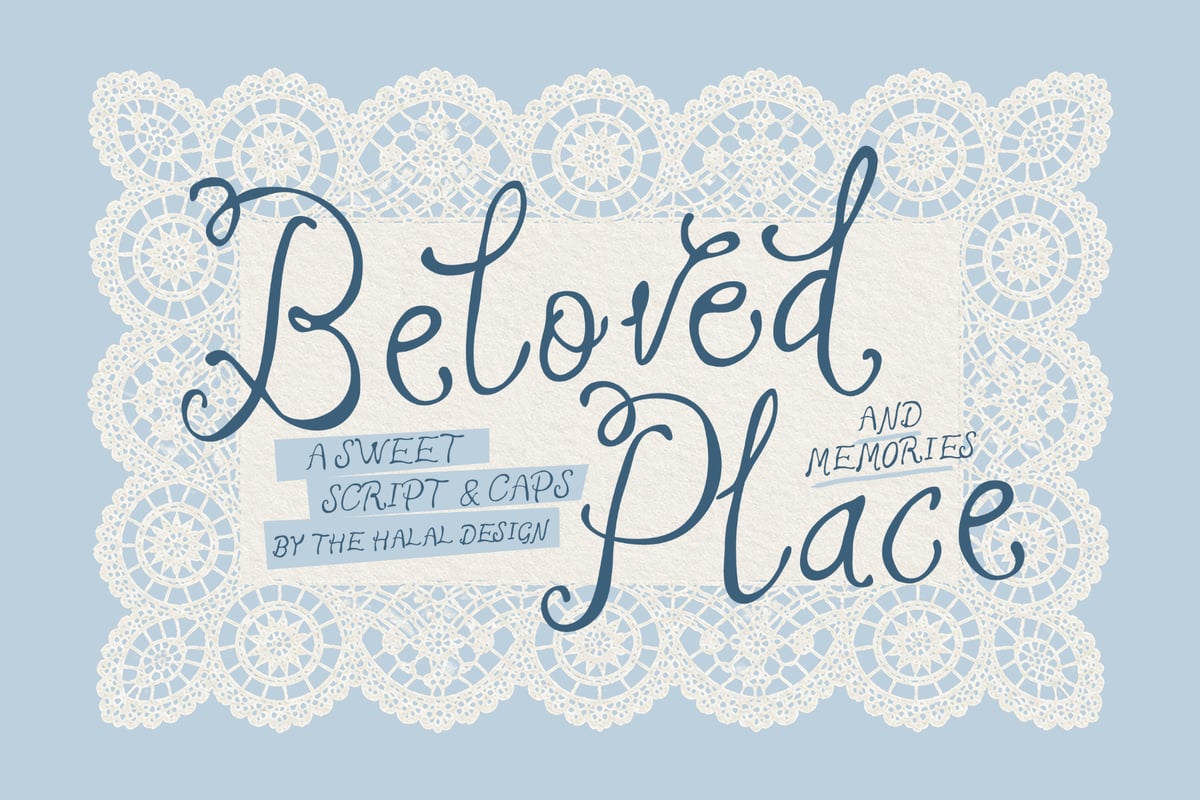
Beloved Place - Sweet Script & Caps Font Duo
Romantic, handcrafted, and full of nostalgic charm — Beloved Place is the font duo your next heartfelt project deserves.
Beloved Place pairs a flowing cursive script with a matching all-caps companion font, designed to evoke warmth, cherished memories, and timeless elegance. Delicate loops and graceful letterforms give every design a handcrafted, heartfelt quality that feels both classic and personal.
This font duo is ideal for:
- Wedding invitations and event stationery
- Romantic greeting cards and inspirational quotes
- Photo overlays and memory albums
- Soft branding, logos, and delicate packaging
- Social media graphics and lifestyle content
- Vintage-inspired crafts and merchandise
The script and caps combination gives you typographic flexibility to create beautiful, cohesive designs with ease — in both print and digital formats.